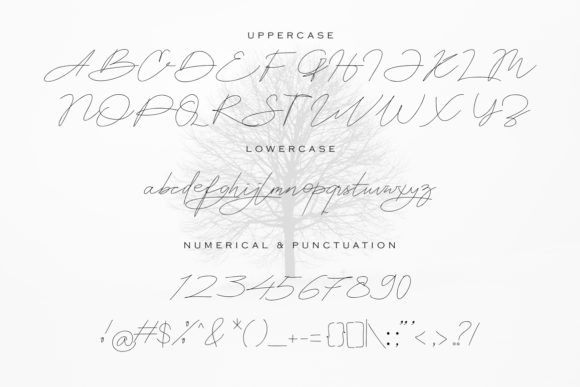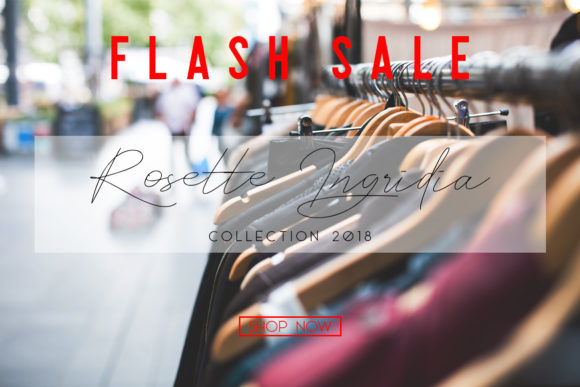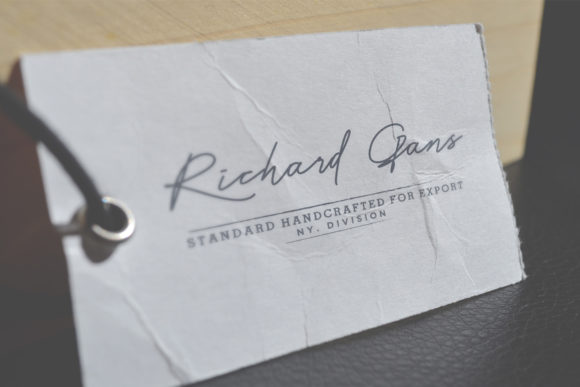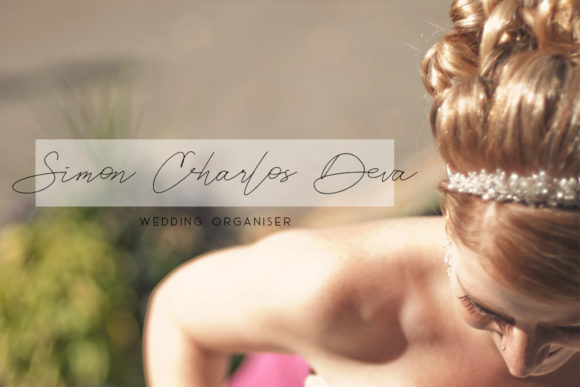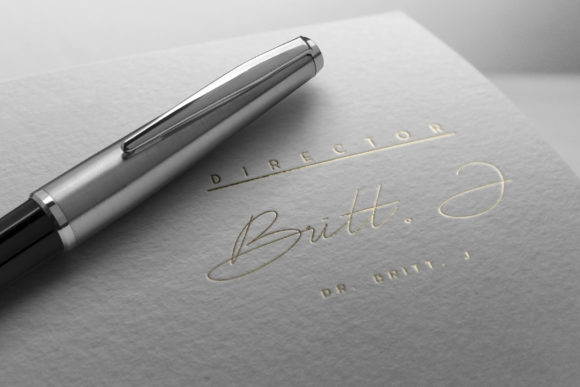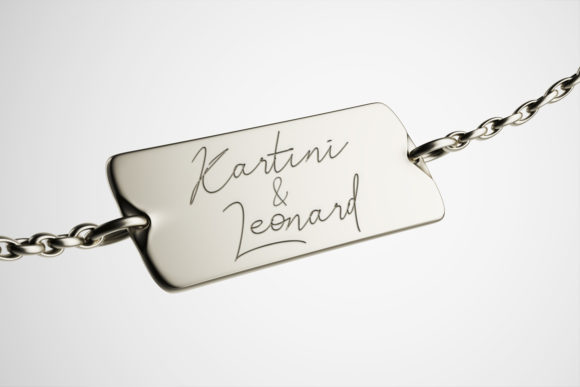
Introducing the Astina Font: Elevate Your Designs with Elegance
The Astina font is a modern handwritten font that exudes sophistication and luxury. Its elegant signature style makes it an ideal choice for designers and crafters looking to add a touch of refinement to their projects. In this article, we’ll delve into the world of the Astina font, exploring its features, benefits, and uses.
A Modern Handwritten Font with a Luxurious Feel
The Astina font is a beautiful example of modern typography. Its handwritten style gives it a personal and approachable feel, while its elegant signature style adds a level of sophistication. This font is perfect for designers who want to create high-end designs that convey luxury and refinement.
Key Features of the Astina Font
- Elegant Signature Style: The Astina font features an elegant signature style that adds a touch of luxury to any design.
- Modern Handwritten Style: Its modern handwritten style makes it perfect for designs that require a personal touch.
- High-Quality Typography: The Astina font is designed with high-quality typography in mind, ensuring that your designs look professional and polished.
Benefits of Using the Astina Font
So, why choose the Astina font for your designs? Here are just a few benefits:
- Adds Luxury and Sophistication: The Astina font’s elegant signature style adds a level of luxury and sophistication to any design.
- Versatile: This font is versatile and can be used in a variety of designs, from branding and packaging to wedding invitations and more.
- Easy to Read: The Astina font is easy to read, making it perfect for designs that require a clear and concise message.
Uses of the Astina Font
The Astina font is perfect for a variety of design projects, including:
- Branding and Packaging: Use the Astina font to create high-end branding and packaging designs that convey luxury and sophistication.
- Wedding Invitations: Add a touch of elegance to your wedding invitations with the Astina font.
- Stationery and Lettering: Use the Astina font to create beautiful stationery and lettering designs that showcase your personality and style.
Tips for Using the Astina Font
Here are a few tips for using the Astina font in your designs:
- Pair with Other Fonts: Experiment with pairing the Astina font with other fonts to create a unique and visually appealing design.
- Use in Headings and Titles: Use the Astina font in headings and titles to add a touch of elegance and sophistication.
The Astina font is a beautiful and elegant handwritten font that adds a touch of luxury and sophistication to any design. Its modern style and high-quality typography make it perfect for designers and crafters looking to create high-end designs. Whether you’re creating branding and packaging designs, wedding invitations, or stationery and lettering, the Astina font is a great choice.